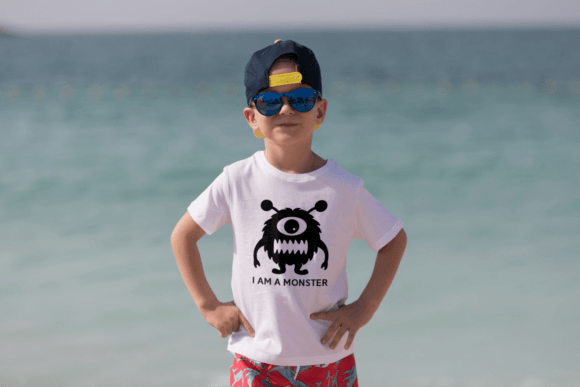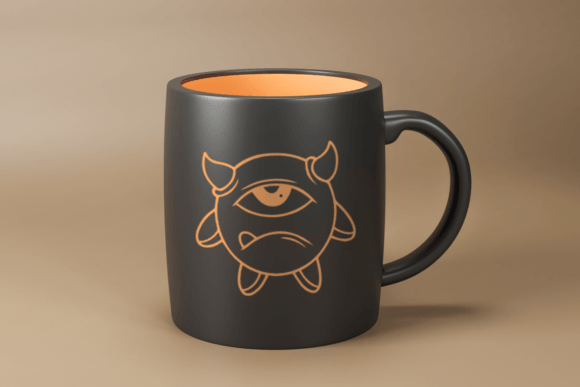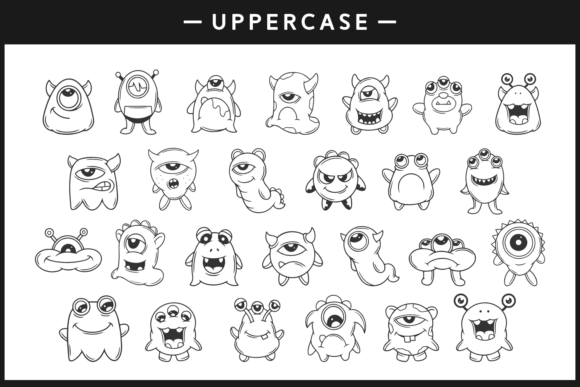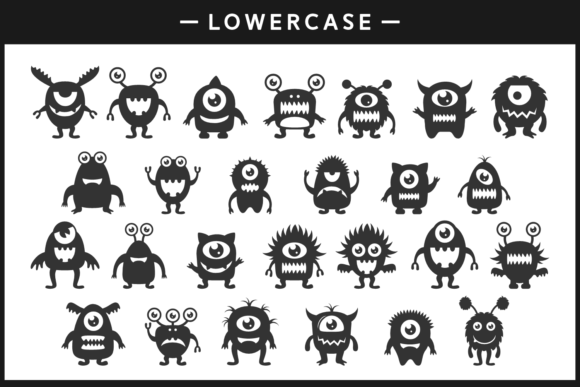
FUNNY MONSTERS FONT SPECIMEN
“Funny Monsters” is a playful and whimsical dingbats font that brings a delightful touch to your designs. With its collection of cute and friendly little monsters, this font is perfect for creating adorable and captivating designs that kids will love. Whether you’re working on t-shirts, mugs, books, stationery, websites, or any other kid-oriented project, “Funny Monsters” will add a fun and charming element.
One of the key strengths of “Funny Monsters” is its ability to create a cheerful and imaginative atmosphere. The font offers a variety of unique and lovable monster characters that can be used individually or combined to create delightful scenes and compositions. From mischievous little creatures to friendly and cuddly monsters, “Funny Monsters” provides a wide range of options to bring your designs to life.
When it comes to apparel design, “Funny Monsters” is a great choice for t-shirts, hoodies, and other clothing items aimed at children. The playful nature of the font adds a sense of fun and excitement to the garments, making them visually appealing and engaging. You can use the monster characters as standalone illustrations or incorporate them into larger designs to create eye-catching and attractive apparel.
In the realm of children’s books and stationery, “Funny Monsters” offers a fantastic resource for adding charm and creativity. Whether you’re designing book covers, illustrations, or stationery items such as notebooks and stickers, the font allows you to incorporate the adorable monster characters into your designs. These cute creatures can serve as friendly companions for young readers or as decorative elements that enhance the overall visual appeal of your products.
For digital projects, “Funny Monsters” brings a sense of playfulness and joy to websites, apps, and digital illustrations. You can use the font’s characters as icons, buttons, or decorative elements that add a whimsical touch to your digital interfaces. The monsters can also be incorporated into digital illustrations or animations, making your online content more engaging and entertaining for children.
In summary, “Funny Monsters” is a playful and whimsical dingbats font that brings a sense of joy and imagination to your designs. With its collection of cute and friendly monster characters, it is perfect for creating adorable designs that kids will love. Whether you’re working on t-shirts, mugs, books, stationery, websites, or other kid-oriented projects, “Funny Monsters” will add a delightful and captivating element. So, let your creativity roam free and bring these lovable monsters to life in your designs!